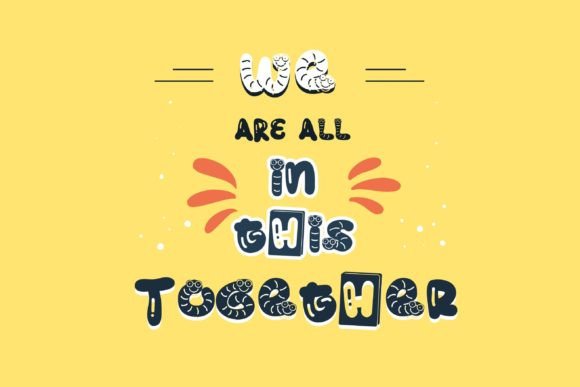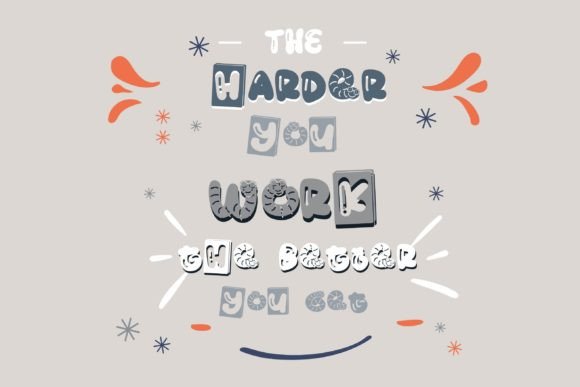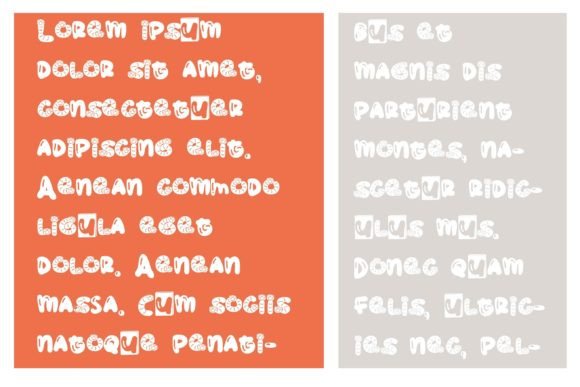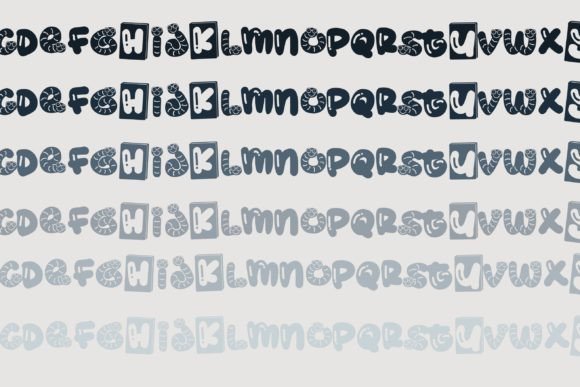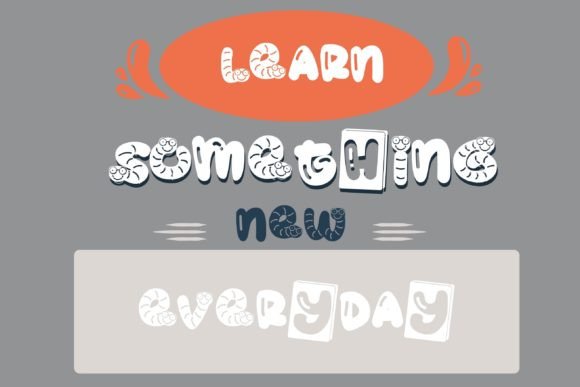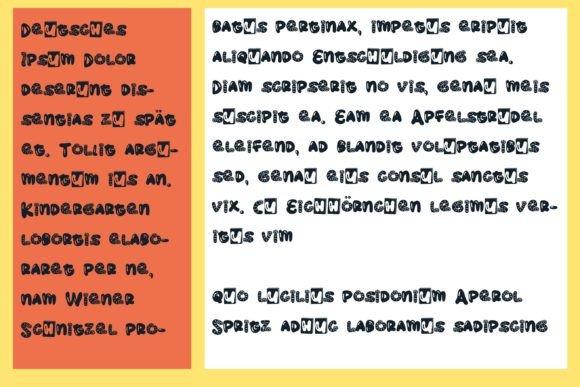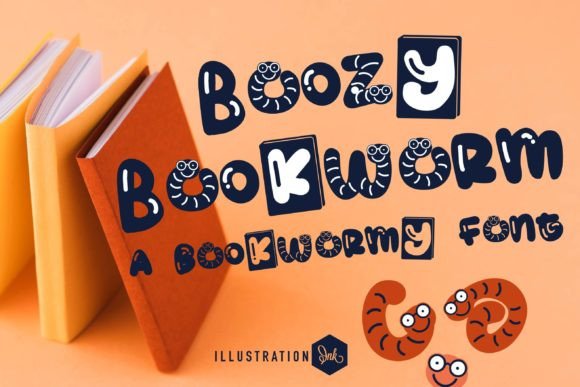
Introducing Boozy Bookworm Font: The Ultimate Creative Companion for Designers and Crafters
Are you a designer, crafter, or DIY enthusiast looking for a unique and playful font to elevate your creative projects? Look no further than Boozy Bookworm Font, a fun and adorable handwritten font that features cute little bookworms and books throughout. This charming font is sure to add a touch of whimsy and personality to your designs, making it perfect for a wide range of applications.
What Makes Boozy Bookworm Font So Special?
Boozy Bookworm Font is more than just a font – it’s a creative companion that can help bring your ideas to life. With its playful and hand-drawn design, this font features cute little bookworms and books that add a touch of fun and personality to any project. Whether you’re working on a DIY craft, a graphic design project, or a digital illustration, Boozy Bookworm Font is the perfect choice.
Key Features of Boozy Bookworm Font
- Handwritten design: Boozy Bookworm Font features a unique and playful handwritten design that’s perfect for adding a personal touch to your projects.
- Cute little bookworms and books: The font features adorable bookworms and books throughout, adding a touch of whimsy and fun to your designs.
- Versatile: Boozy Bookworm Font can be used for a wide range of applications, from DIY crafts and graphic design projects to digital illustrations and more.
Boozy Bookworm Font is the perfect choice for designers and crafters who want to add a touch of personality and whimsy to their projects. Whether you’re working on a:
- DIY craft: Use Boozy Bookworm Font to add a personal touch to your DIY crafts, such as handmade cards, gift tags, and more.
- Graphic design project: Add a playful touch to your graphic design projects, such as brochures, flyers, and social media graphics.
- Digital illustration: Use Boozy Bookworm Font to add a touch of whimsy and personality to your digital illustrations, such as children’s books, comics, and more.
Need some inspiration for using Boozy Bookworm Font? Here are a few tips and ideas to get you started:
- Mix and match: Combine Boozy Bookworm Font with other fonts and design elements to create a unique and eye-catching design.
- Experiment with colors: Try using different colors and textures to add depth and interest to your designs.
- Add illustrations: Use Boozy Bookworm Font in combination with illustrations of bookworms, books, and other whimsical elements to create a playful and engaging design.